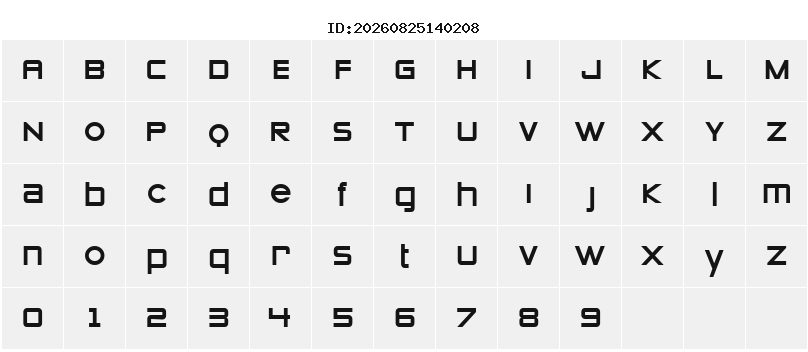
• Font Name: STOMP_Zeroes
• Full Font Name: STOMP_Zeroes
About STOMP_Zeroes.ttf
STOMP_Zeroes.ttf is a modern, elegant sans-serif font designed for ultimate readability and visual harmony. Perfect for branding, headlines, web design, and print materials.